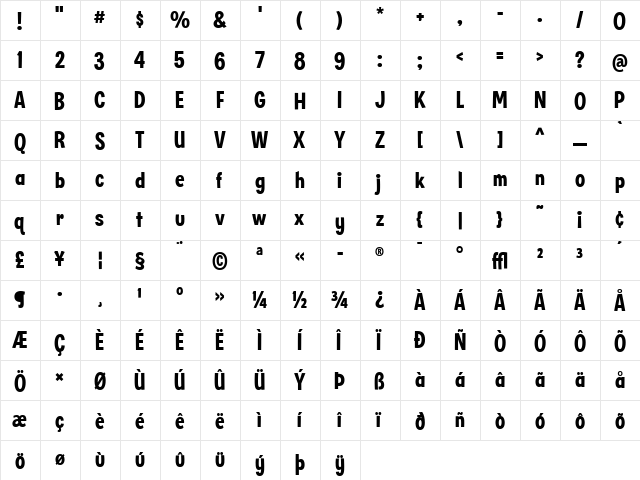
EdPS Regular
Design Context for EdPS Typeface
EdPS offers clean, dependable letterforms without strong stylistic allegiance, making it a practical choice for designers who need flexibility.
Pro Tip: Pair EdPS with a font of contrasting weight or personality to build a more expressive typographic hierarchy.